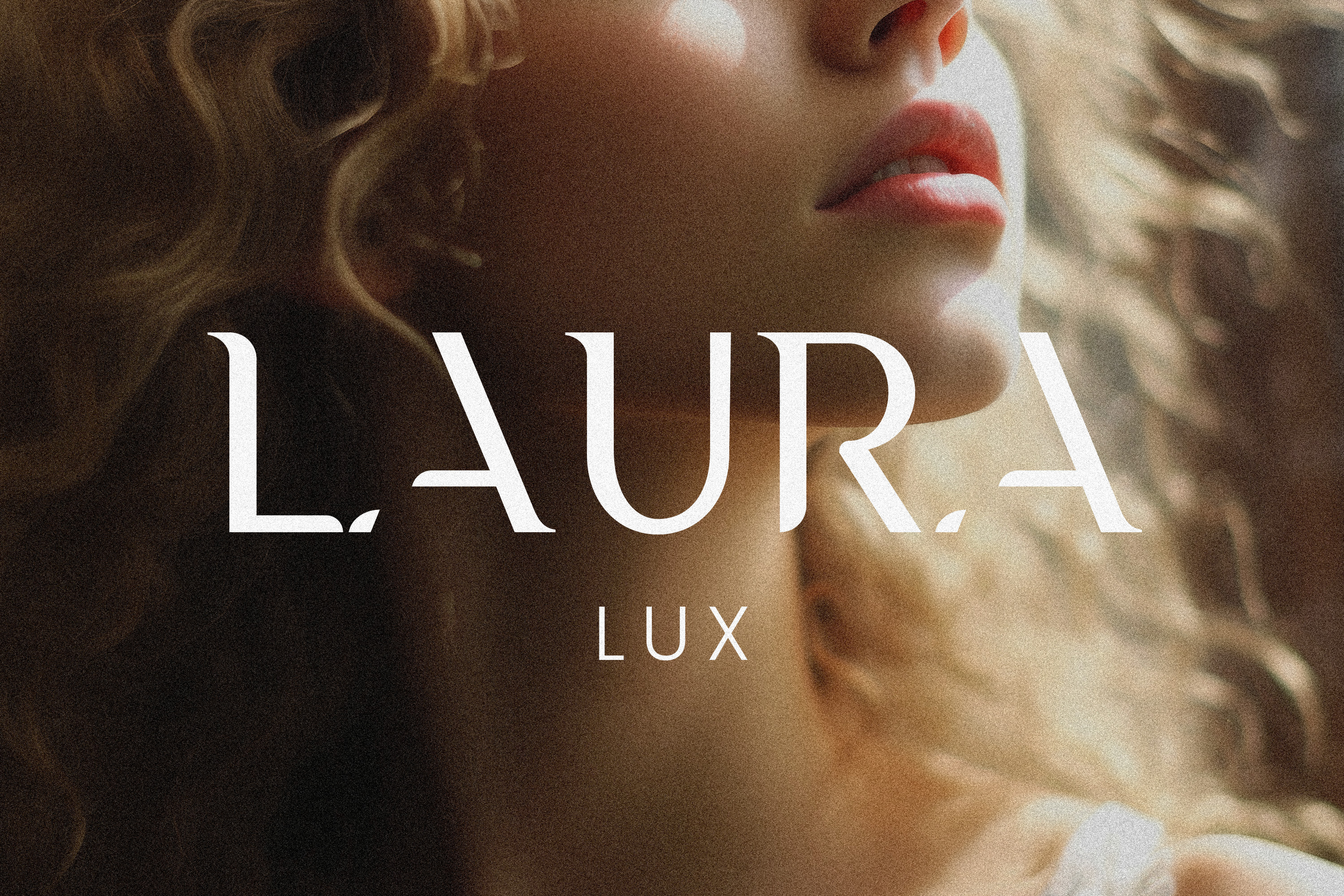
Laura - A Minimal Luxury Font
Introducing Laura Lux - a luxury serif stencil font for branding and display purposes
This refined stencil font is meticulously crafted for logos and branding. It combines the bold, impactful nature of traditional stencil designs with the sleek, sophisticated lines of contemporary typography, creating a unique aesthetic that stands out in any branding context.
Laura Lux is perfect for all kinds of elegant branding projects, modern logos, invitations, and titles. It works best as a title or decorative font as it conveys modern minimalism.